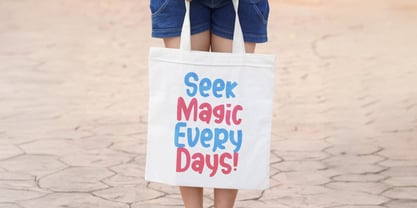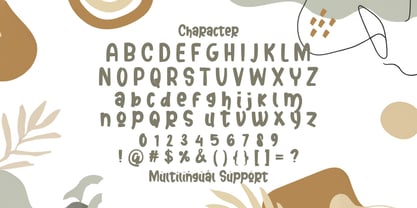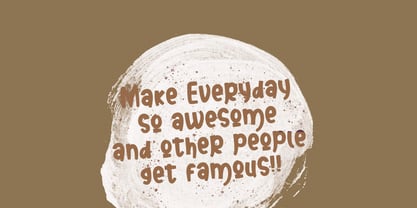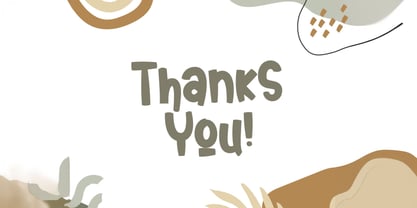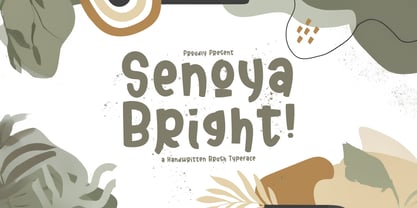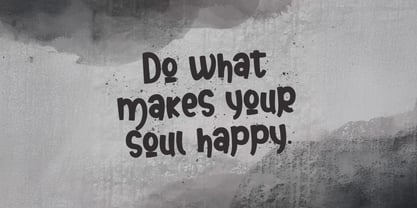
Senoya Bright
by Stringlabs Creative Studio
The Senoya Bright Font Family was designed by Virgiawan Listanto and published by Stringlabs Creative Studio. Senoya Bright contains 1 styles.
Senoya Bright is a bold and vibrant display font that captures attention with its striking, modern design. Featuring clean lines and a unique blend of geometric shapes, this font radiates confidence and energy, making it perfect for headlines, logos, posters, and branding projects that need to stand out.